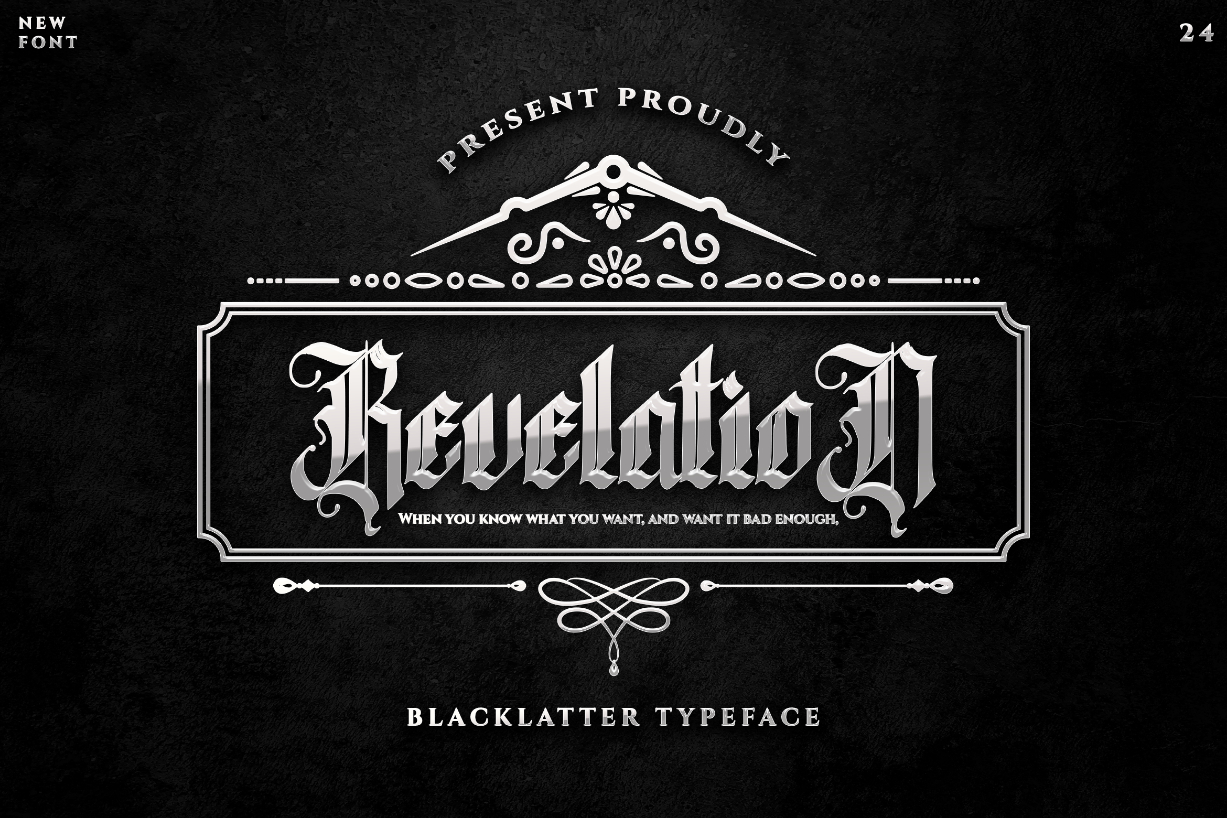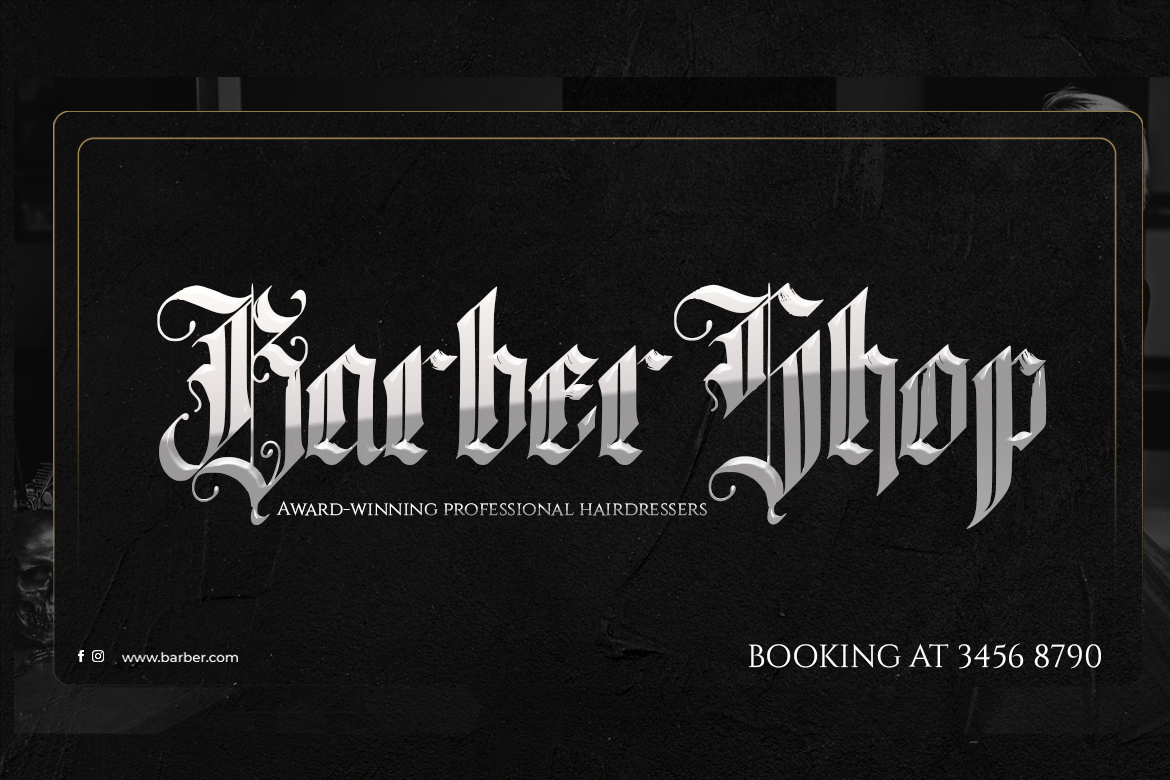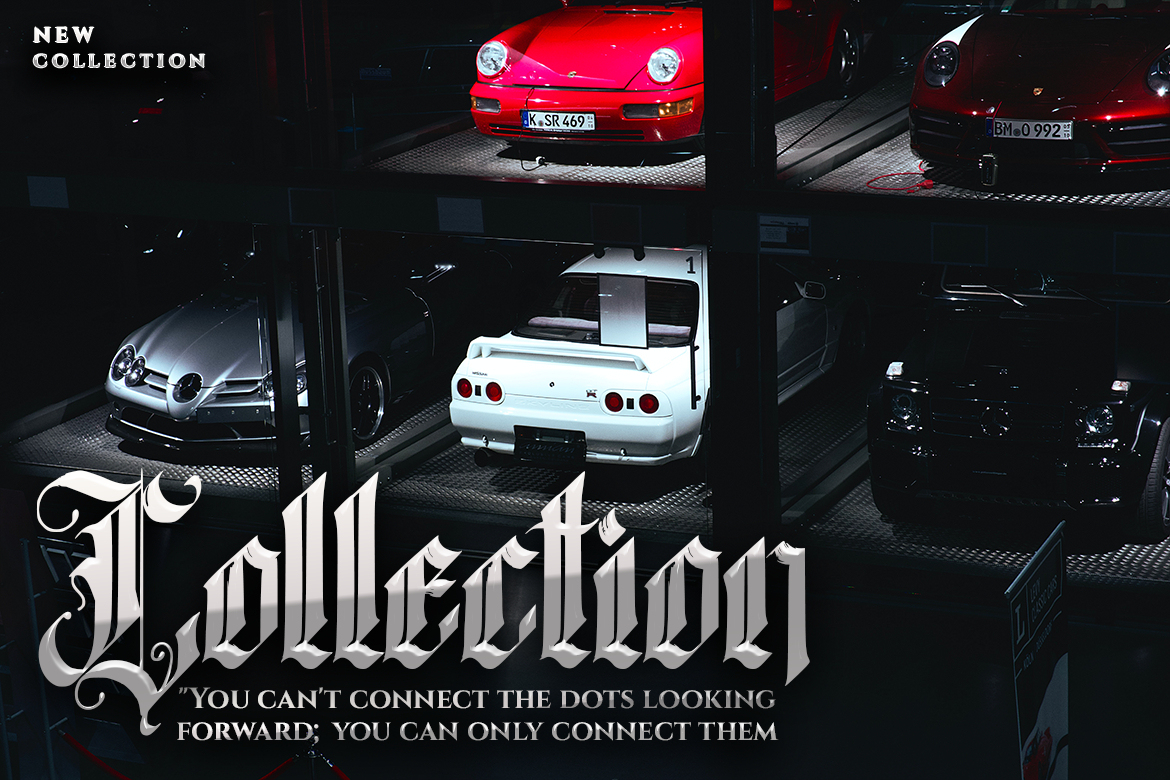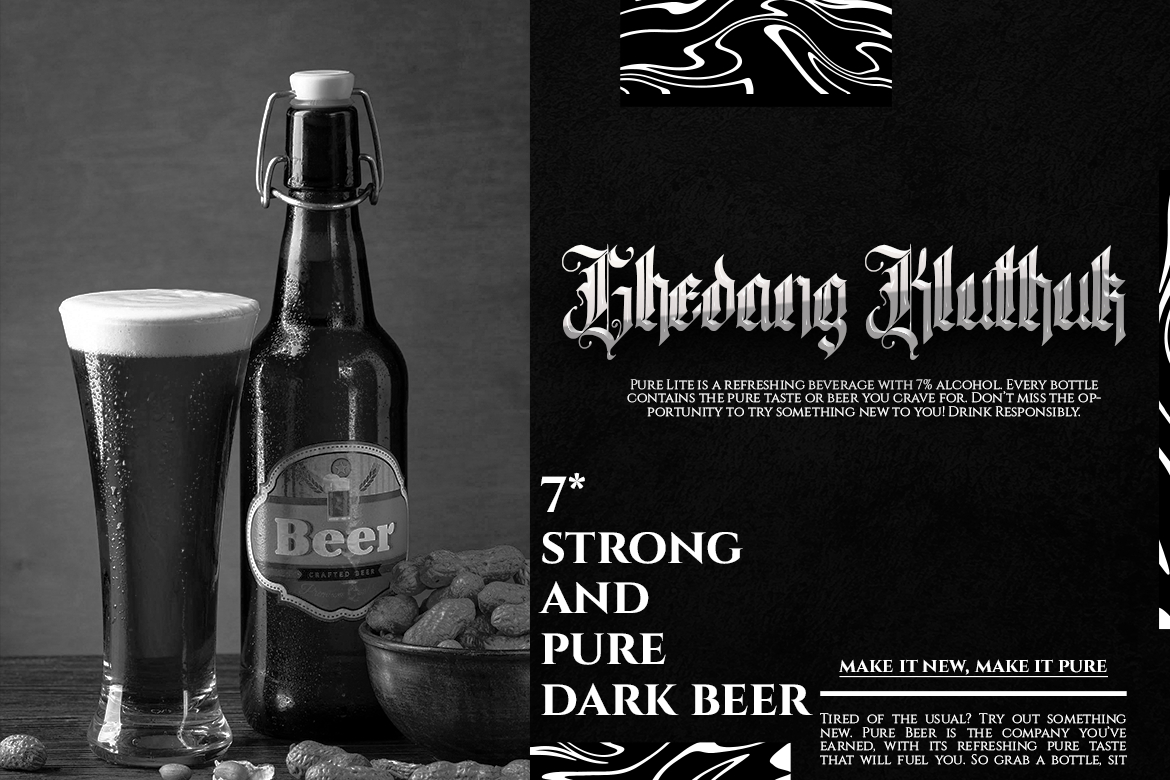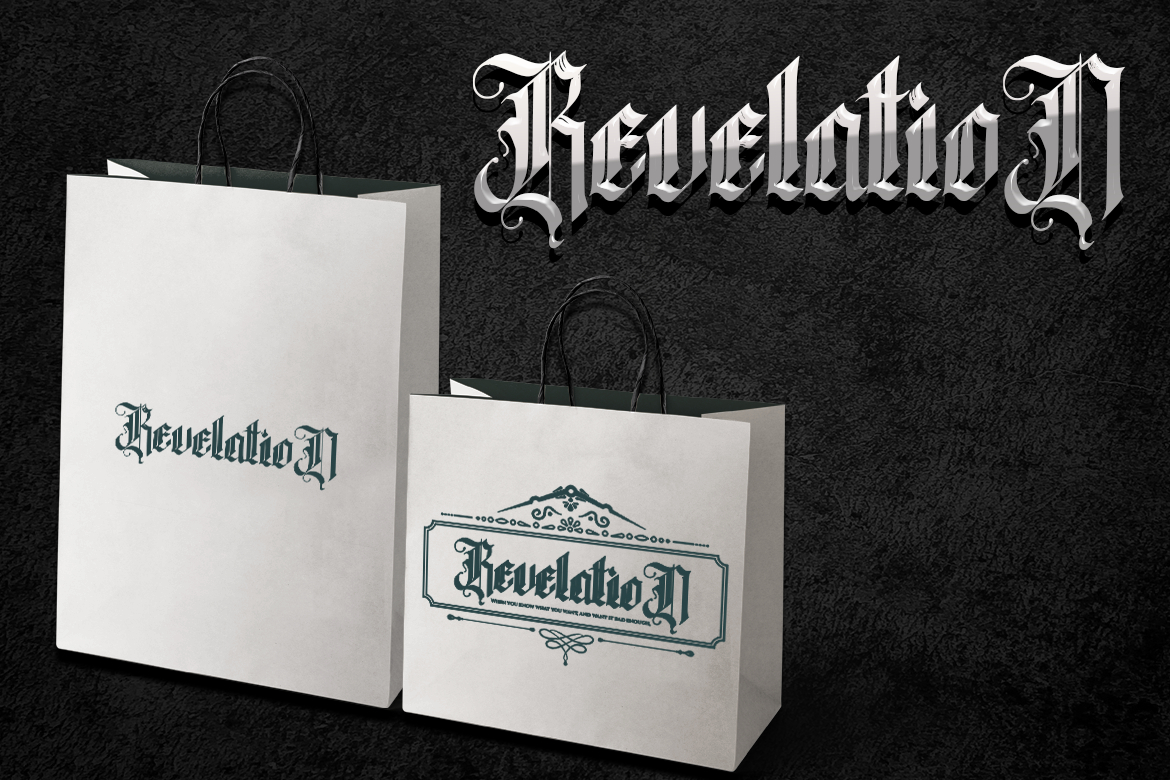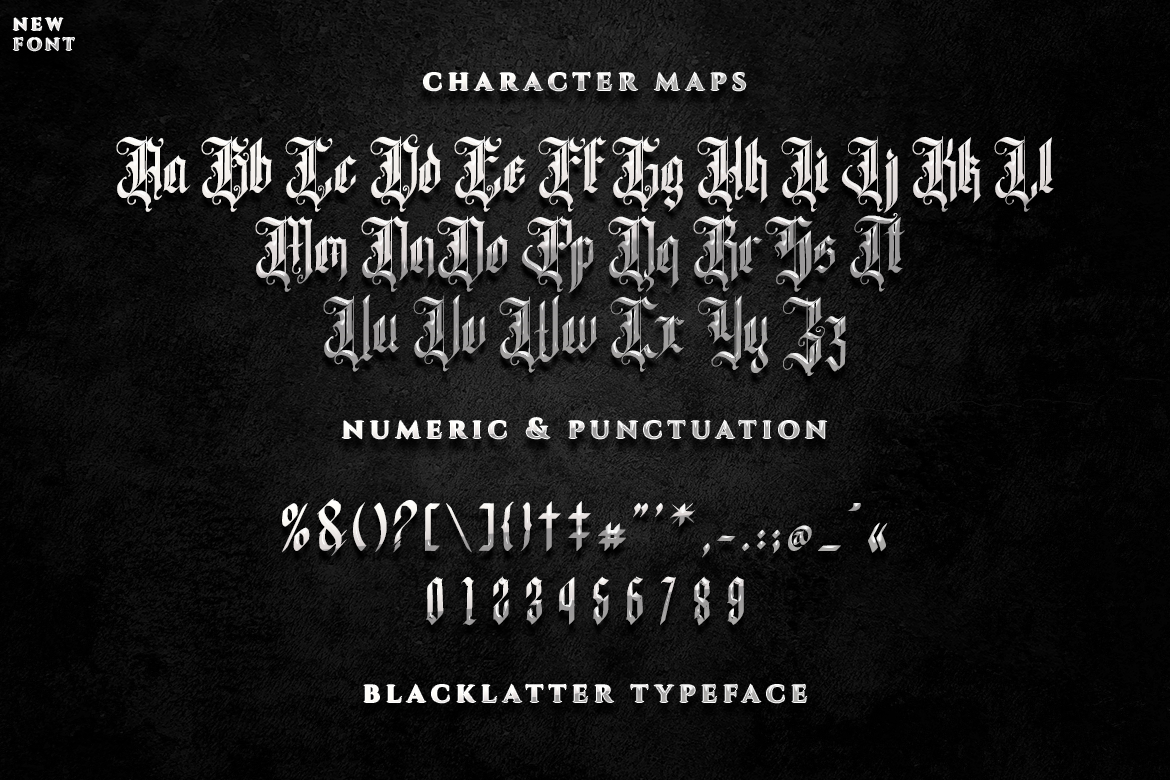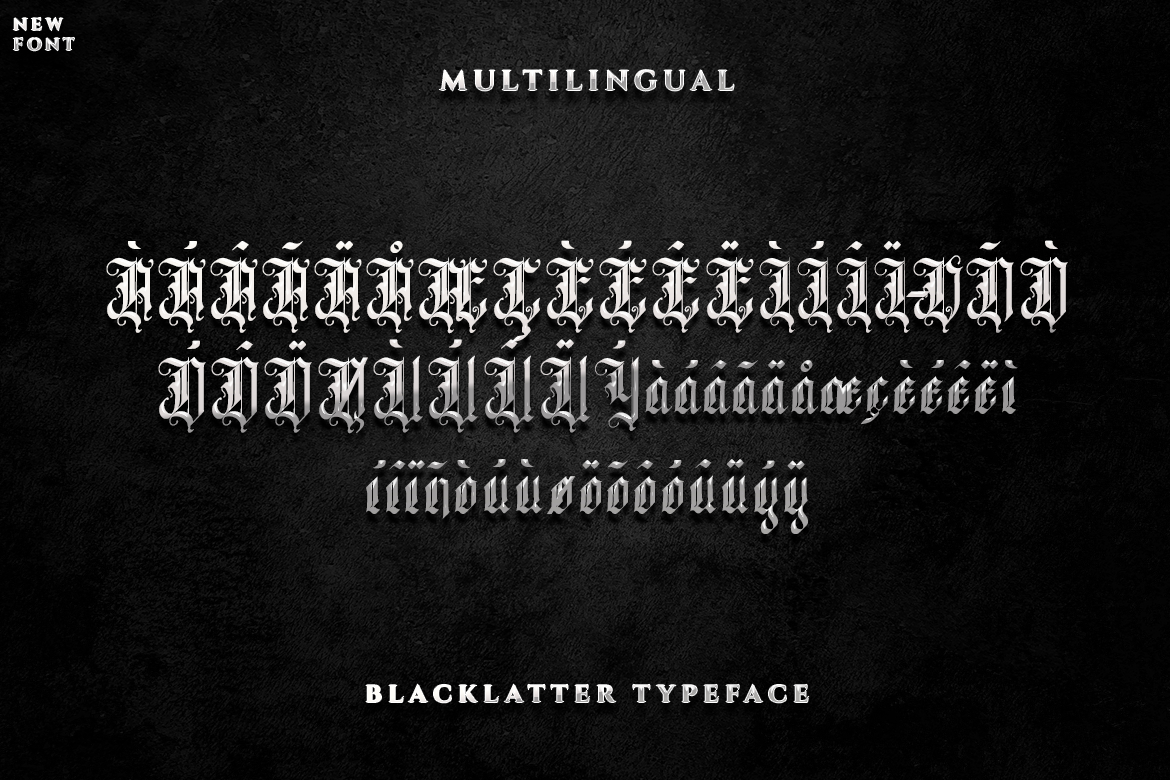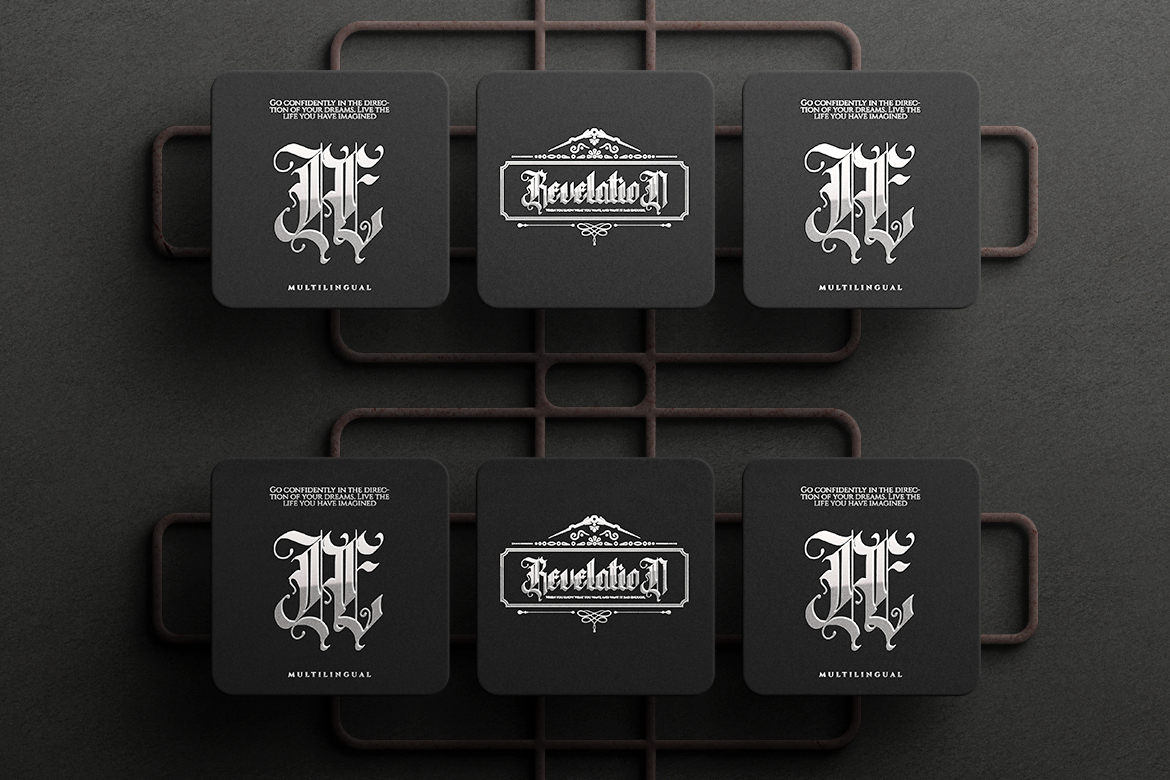
Revelation Font
Revelation is an elegant and classic black letter font that will impress with its stylish features. Use it for product packaging, branding, or other projects that need bold and daring typography!